OpenType Features
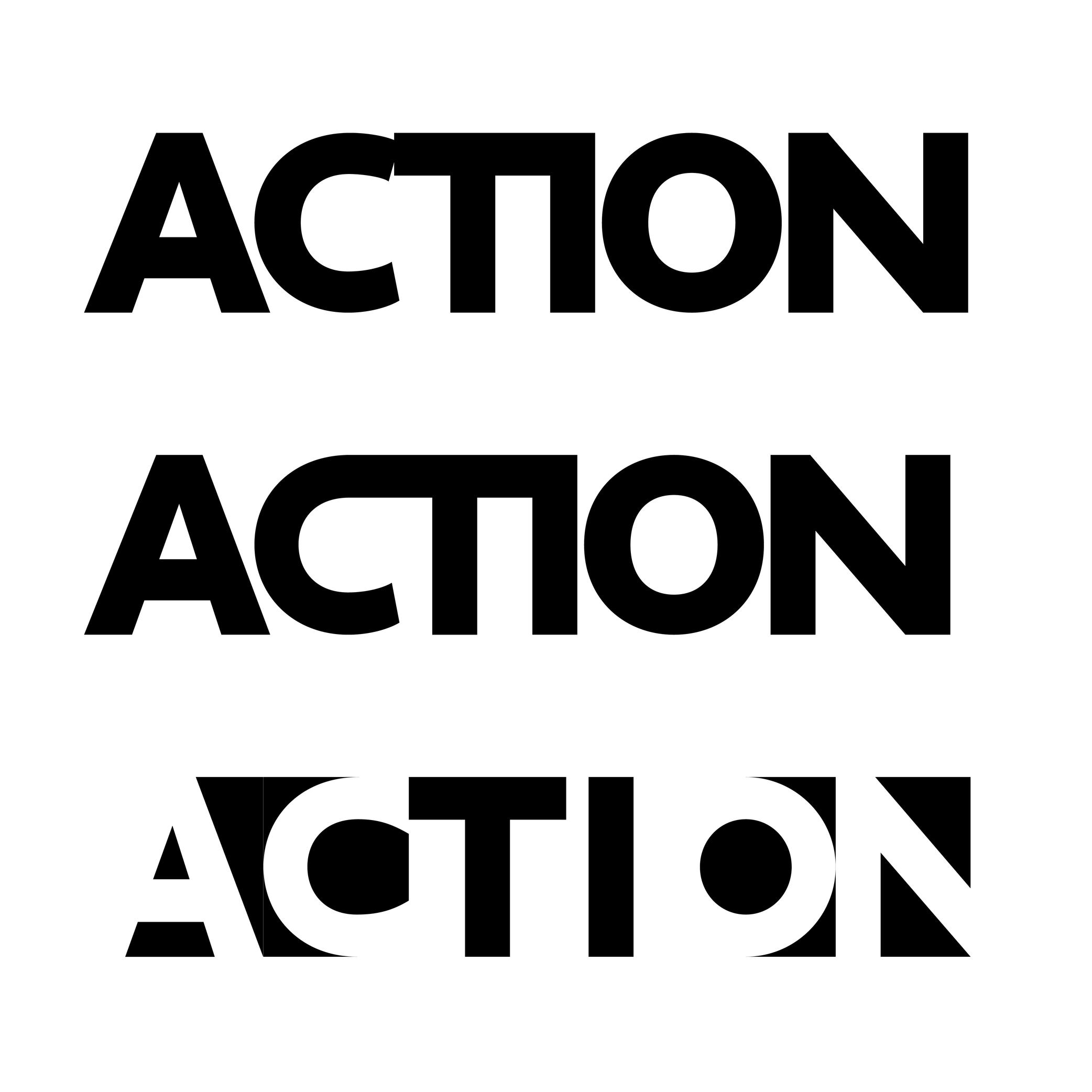
OpenType features are additional typographic options included in fonts using OpenType format.
For a single character, a font can contain multiple glyph variants (or alternates) alongside its default form. These can serve stylistic purposes (e.g., swashes, stylistic sets) or functional improvements (e.g., fractions, localized forms, contextual alternates).
Features can be activated in software that supports them (like design or word-processing apps) or through CSS on websites. Some common OpenType features include:
• Case-sensitive forms (case);
• Localized forms (locl);
• Small capitals or small caps (smcp);
• Tabular, proportional or oldstyle figures (tnum, pnum, onum);
• Stylistic sets (ss01-ss20);
• Superiors, inferiors (sups, sinf);
• Nominator, denominator, fractions (numr, dnum, frac).
FONT ENGINEERING HINT
OpenType features are implemented in the font’s layout tables:
• GSUB (Glyph Substitution): replaces one glyph with another (e.g., default a with a swash variant).
• GPOS (Glyph Positioning): adjusts spacing and positioning between glyphs (e.g., kerning, mark placement).